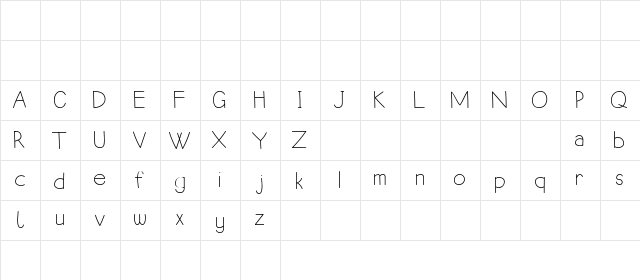
Comic San DY Regular
| Designer | Sandy Luke Nugroho |
Design Context for Comic San DY Typeface
Comic San DY has an approachable, lighthearted character — its loose, expressive forms are well-suited to children's content, casual branding, and fun-first design.
Font Pairing: Pairs well with a rounded or humanist sans for body copy, maintaining the friendly tone without relying on Comic San DY to carry extended reading.
Pro Tip: Avoid using Comic San DY for long passages of text — it works best for headlines, labels, and short calls to action.